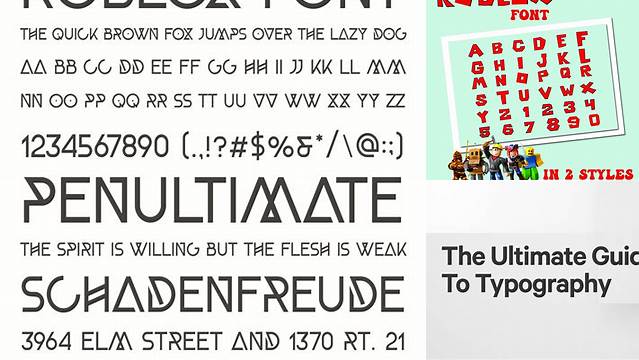
Roblox Fonts: Your Ultimate Guide To Typography
Hey everyone! Ever wondered about the cool fonts you see in Roblox games? You know, those stylish text displays that make everything pop? Well, you're in the right place! We're diving deep into Roblox fonts – how to find them, how to use them, and everything in between. Whether you're a seasoned Roblox developer or just a casual player curious about the aesthetic side of things, this guide has you covered. Let's get started and unlock the secrets of Roblox typography!
H2: What Exactly Are Roblox Fonts?
Alright, so first things first: what are Roblox fonts? Simply put, they're the typefaces used to display text within the Roblox platform. This includes everything from the names of your favorite games to the chat messages you send and receive. Fonts are crucial in creating a visually appealing and engaging experience. They set the mood, convey information, and help players understand the game's tone and style. Think about it: a horror game might use a spooky, jagged font, while a bright and cheerful game might opt for a bubbly and playful one. Roblox fonts are not just about the letters themselves; they're about the whole look and feel. They're the visual voice of the game. Understanding different fonts can boost your gameplay and make creating your own games easier. From the classic default fonts to the many options now available, the choices are vast. They also allow for creative expression. Choosing the right font can dramatically impact your game's success by capturing the player's attention. The font can make the difference between a successful game and one that goes unnoticed. Plus, learning the different styles helps in understanding the wider world of graphic design, so it's a win-win! Learning the ins and outs of different fonts is like learning a secret language that can help you create stunning experiences for other players. So, whether you are building games or just enjoying playing them, understanding the world of fonts within Roblox is a journey worth taking.
H2: The Default Roblox Font: A Classic Choice
Let's talk about the go-to font in Roblox: the default font. Often, it's the font you see when you first start playing. This classic choice has been around for ages. Many Roblox fonts you see are designed to be clean, readable, and universal. The default font is designed to fit well across a wide range of screen sizes and resolutions, which is super important given the variety of devices Roblox players use. It needs to be clear and easy to read, no matter where you're playing. Roblox's default font isn't exactly fancy. The primary goal is to deliver information without distracting from the gameplay. It's designed to make sure players can easily understand what's going on, whether it's reading instructions, chat messages, or game notifications. It's also important to note that while the default font might seem basic, it has evolved over time. Roblox regularly updates its appearance, including font choices, to keep the platform fresh and appealing. Sometimes these updates include minor tweaks to the default font, making it slightly more readable or visually appealing. It's also the foundation upon which more complex designs are built. Learning to spot the default font is useful because it will help you customize your own creations. Many developers use it as a base for their own custom fonts. Overall, the default font is a workhorse: reliable, functional, and always ready to get the job done. It sets the stage for the overall user experience, and it's a testament to the simplicity that works.
H2: Customizing Text with Different Roblox Fonts
Alright, let's spice things up! One of the most exciting aspects of using Roblox fonts is customizing your text to fit your creative vision. Roblox offers a variety of font styles that allow you to modify the appearance of text within your games. This is how you can transform a simple interface into a beautiful game. To start, you'll need to access the properties of your text objects. This can be done in the Roblox Studio, the development environment. The text objects that you can modify include TextLabels, TextButtons, and other UI elements. These elements are the canvas where you'll be expressing your unique style. Once you've selected your text object, you'll typically find a "Font" property in the Properties window. Clicking this property will reveal a dropdown menu with various font options. Roblox provides you with many font choices, so you can experiment and pick the one that matches your style. Be aware that the exact options available may change due to updates. Many developers also try to find out how to import custom fonts to Roblox. The availability of these fonts varies. The process involves using the Roblox Studio and requires an understanding of how Roblox handles assets. The beauty of this functionality is that it allows you to tailor the experience to your specific requirements. Experimenting with fonts is a great way to make your games unique. So, dive in, and start playing with the fonts to elevate your creations!
H2: Finding the Perfect Roblox Font for Your Game
Choosing the right font is important to the overall vibe of your game. The best Roblox fonts will contribute to the game's atmosphere. When searching for a font, consider the genre of your game. Is it a fun adventure game or a scary horror game? The genre will influence the font selection. For example, a bold and playful font might be ideal for a kids' game, while a classic serif font could be suitable for a roleplaying game. You should also think about readability. No matter how cool the font, make sure players can easily read the text, especially important in chat, tutorials, and important information. Use contrast effectively. The font color must contrast well with the background color. Also, consider the size of the text and the devices the game will be played on. Make sure the text is large enough to read on a phone and a big monitor. Pay attention to the overall aesthetic of your game. Does the font complement the game's graphics and overall style? Sometimes, you might want to choose a font that is similar to the game's logo or other branding elements. The font should enhance the visual experience, not distract from it. Ultimately, the perfect font will vary from game to game. With Roblox, you have a large selection of built-in fonts and external options. Take the time to explore, experiment, and choose the fonts that best embody the essence of your game!
H2: Roblox Studio and Font Customization
Roblox Studio is your main toolkit for using and customizing Roblox fonts. Roblox Studio has a built-in interface for creating and modifying games. You can access many fonts directly within the editor, making it easy to apply and test different styles. This is where the magic happens! The user interface is intuitive, making it easy to experiment with different font types and sizes to achieve your vision. Roblox Studio allows you to create various text objects. TextLabels, TextButtons, and other UI elements can all be customized to suit your project. You can change the font, color, size, and style of the text, giving you a lot of control. Studio also provides properties for alignment, text wrapping, and text scaling. You can adjust these properties to optimize the layout of your text and make it look professional. The font properties can be easily accessed through the Properties window, which allows you to see and modify a range of settings. Keep in mind that Roblox frequently updates Studio, so the exact interface might change. Nevertheless, the essential functionality for font customization remains consistent. Mastering Studio is necessary to customize fonts to improve the game's interface. You can get very creative and find the perfect font style to engage players. So, take the time to get to know Roblox Studio, and the possibilities for font customization will open up.
H3: Utilizing TextLabels for Dynamic Text Display
TextLabels in Roblox are like blank canvases on which you can display any text you want. In the world of Roblox fonts, TextLabels are your primary means of showing words, numbers, and other textual information to your players. They can be used for simple things like displaying a score or the name of a level, or for complex things like custom interfaces and dialogue systems. The TextLabel property is located in Roblox Studio. This allows you to change the font, size, and color of the text. You can also set the background color of the label itself, which is useful to make the text stand out from the background. Moreover, you can control other important aspects, such as the position, size, and scaling of the TextLabels, ensuring that the text looks perfect on different devices and screen resolutions. The versatility of TextLabels enables you to create game interfaces and in-game signs. They can be used for displaying a variety of information, from game instructions to interactive prompts. TextLabels are an essential tool. They not only help to present data and information but also allow for creative designs. Whether creating menus, dynamic displays, or informative overlays, TextLabels provide the groundwork for engaging with your audience. Make sure you understand the properties. With TextLabels, you can customize the appearance of text in your game.
H3: Crafting Engaging TextButtons with Stylish Fonts
TextButtons in Roblox are interactive elements. Using Roblox fonts, they serve as an integral part of a well-designed user interface. These buttons are clickable components that respond to player interaction, which can lead to a variety of in-game events. TextButtons allow you to use a variety of font styles. The choice of font is crucial in determining the overall aesthetics and readability of the button. A well-chosen font can not only make the button look attractive but also make it obvious to the player. The properties of TextButtons, located in Roblox Studio, are accessible for customization. You can modify the font, color, and size of the text. Roblox Studio lets you control the appearance of the button, from the background color and border style to the text displayed. It's essential to make your buttons look good. You can integrate them to complement the game's visual design. The font on a TextButton is a core design aspect that guides player interaction. It can visually highlight essential actions or create an appealing and understandable interface. You can use these features to create intuitive and user-friendly game experiences. Whether designing menus, prompts, or interactive elements, TextButtons provide the building blocks for engaging and user-friendly designs. With the appropriate font, you can improve the player experience.
H3: Exploring Font Effects and Styling Options
When you explore the world of Roblox fonts, you will find that Roblox offers many styling options, letting you modify your text to match your design. You can use effects to customize the appearance of text in your game. You can make the text bold, italic, or underlined, depending on your needs. There are also options to change the color and add shadows or outlines to the text to improve readability. The properties of text objects in Roblox Studio offer different font styling options. The properties panel provides a comprehensive set of tools for adjusting the appearance of your text. You can experiment with the many styles offered by Roblox to create text that matches your game's atmosphere. You can select from various font weights, which affects the boldness of the text. You can also experiment with effects to create visual interest and enhance your game's overall presentation. By mastering these styling options, you can create unique and engaging text elements that contribute to your game's success. Your choices play a significant role in shaping the visual design and player interaction.
H2: The Best Fonts for Different Game Genres
H2: The Future of Fonts in Roblox
So, what does the future hold for Roblox fonts? There are some interesting opportunities for font use. Expect more customization options. Roblox is likely to add new tools for font customization. In the future, developers might have the ability to more easily import custom fonts and have even more control over text styling. Furthermore, technology could create more dynamic and animated text options. Consider how the rise of immersive technologies might affect font design. Fonts may adapt to new platforms and improve interactivity. Designers might begin incorporating fonts that respond dynamically to game events. Expect increased emphasis on accessibility. You may find new font styles that prioritize readability. Roblox may incorporate design choices to accommodate players with a wide range of requirements. Keep watching as new styles and technologies become available.